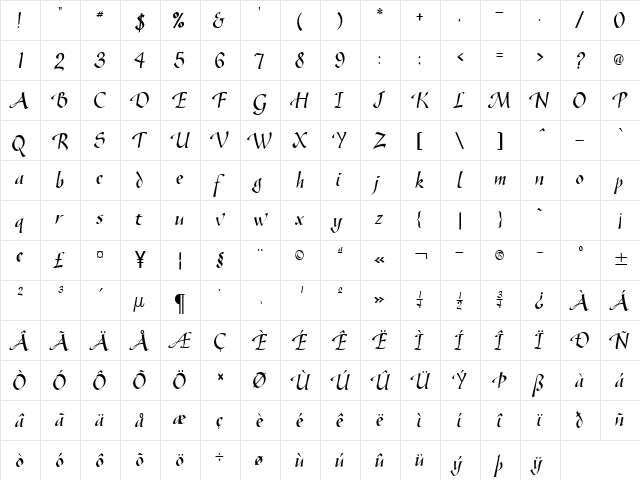
Gaze Condensed Normal
Design Context for Gaze Condensed Typeface
Gaze Condensed is a composed and adaptable typeface that performs quietly and consistently across a wide range of design contexts. The condensed width makes it efficient for tight spaces without sacrificing legibility.